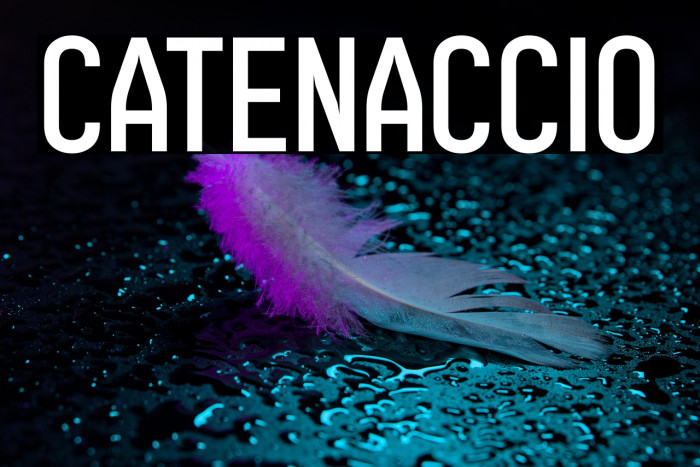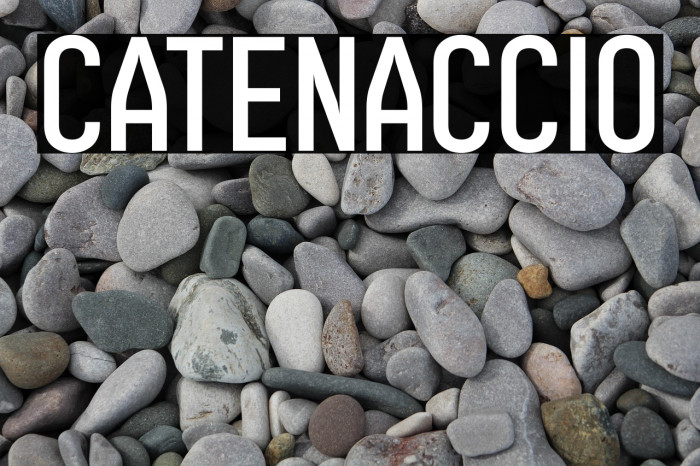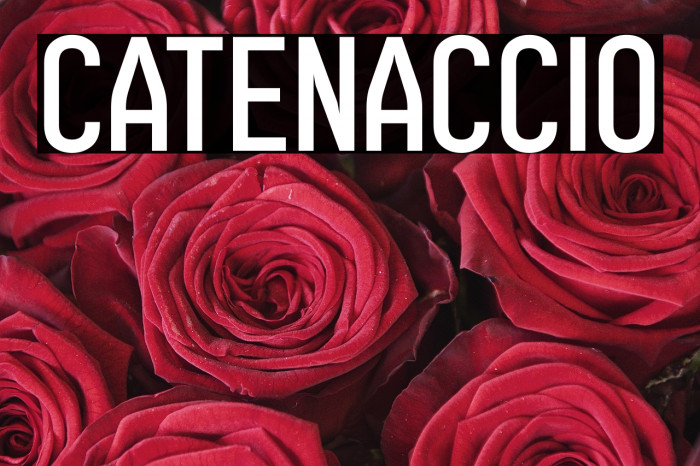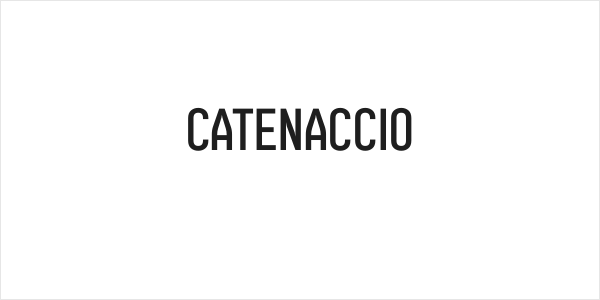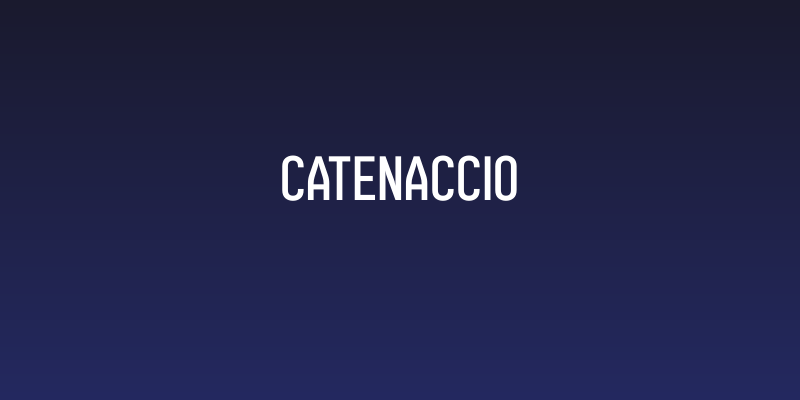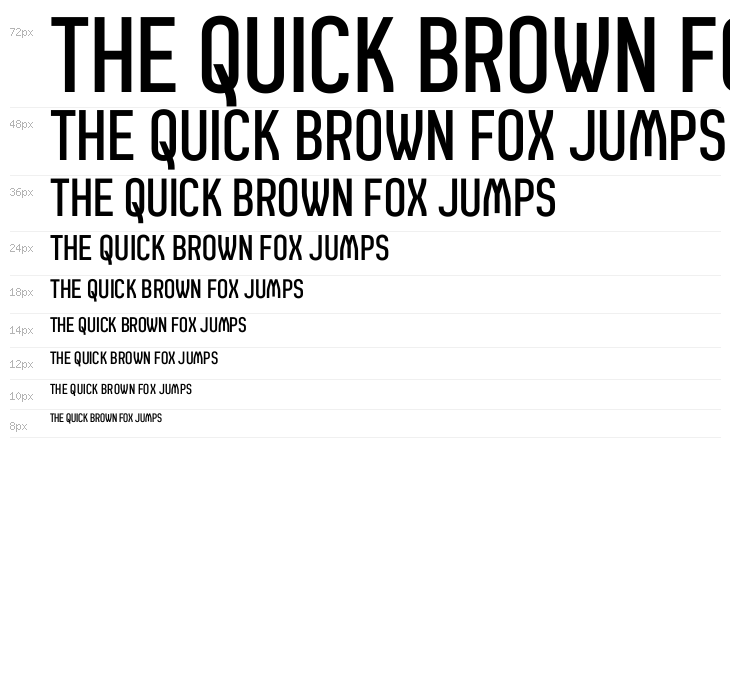
Catenaccio Font
Catenaccio Description
This font features a bold, geometric design with a strong presence. The characters are tall and narrow, giving a condensed appearance that is both modern and striking. The uppercase letters are particularly prominent, with sharp angles and clean lines that convey a sense of precision and strength. The numerals are equally bold, maintaining the same geometric style, making them highly legible. Special characters are designed to complement the overall aesthetic, ensuring consistency across all glyphs. This font is ideal for projects that require a bold statement, such as headlines or branding materials.